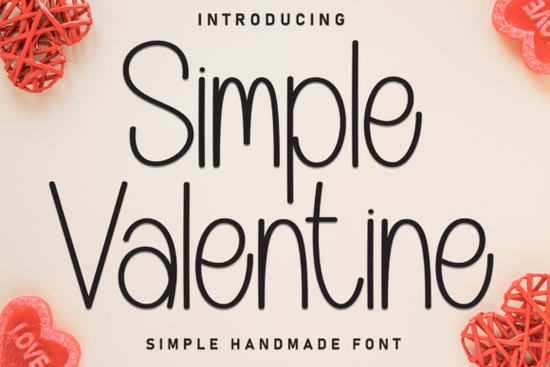
If you're looking for a font that feels personal and warm like a note written by hand but with consistent, clean lines Simple Valentine Font is a great fit. It’s perfect for anyone creating designs that need a touch of charm without the fuss. Whether you’re making wedding invites, birthday cards, or social media graphics, this display font adds just the right amount of personality.
What makes Simple Valentine Font stand out?
This handwriting-inspired typeface captures the softness of real pen strokes while keeping things legible and professional. It’s not overly fancy, which means it works well in both digital and print projects. The letterforms are slightly uneven just enough to feel authentic but still balanced so they don’t distract from your message.
It’s especially useful when you want to give your design a handmade vibe. Think of it as a digital version of a love letter you’d write on a rainy afternoon. The subtle flourishes and gentle curves make it ideal for seasonal content like Valentine’s Day cards, baby shower invites, or even small business branding that values warmth and approachability.
Where can you use this font?
- Wedding invitations – Add a heartfelt tone to save-the-date cards or seating charts.
- Greeting cards – Perfect for birthdays, thank-yous, or holiday messages.
- Print-on-demand items – Use it on mugs, tote bags, or wall art with sweet quotes.
- Social media graphics – Great for Instagram stories or Pinterest pins with a cozy aesthetic.
- Small business branding – Ideal for cafes, boutiques, or craft shops wanting a friendly image.
You’ll find it works well across many styles, especially those leaning into minimalist charm or romantic themes. It pairs nicely with solid colors or light textures, letting the font remain the star.
How does it compare to other display fonts?
While there are many playful fonts out there, Simple Valentine Font avoids feeling too childish or overwhelming. It strikes a balance between whimsy and clarity something you’ll appreciate when designing for adults who still enjoy a little sweetness.
If you’ve used similar fonts like retro autumn font, super funky font, or siglon font, you might notice this one leans more toward understated elegance. It doesn’t shout for attention it quietly enhances your message instead.
For a bolder contrast, try pairing it with something like milko font or modern distress font in the same project. One could handle the main headline, the other the supporting text giving your design depth without clutter.
It also includes full character support: uppercase and lowercase letters, numbers, punctuation, and basic ligatures. That means you can use it for longer texts, not just short phrases or titles.
Who should consider this font?
Designers who value authenticity over flash will appreciate its natural flow. Crafters making handmade-style products will find it fits perfectly. Print-on-demand sellers can use it to create unique, emotionally resonant designs that stand out in crowded marketplaces.
Even if you’re just starting out, this font is beginner-friendly. You don’t need advanced skills to make something beautiful with it just a few thoughtful choices in color and layout.
Looking for inspiration? Try using it on a quote like “You’re my favorite person” in a soft pink or cream background. Or pair it with a simple line drawing of a heart for a minimalist card.
Once you’ve tried it, you might find yourself reaching for it again and again not just for Valentine’s Day, but for any project where you want to say something meaningful with style.